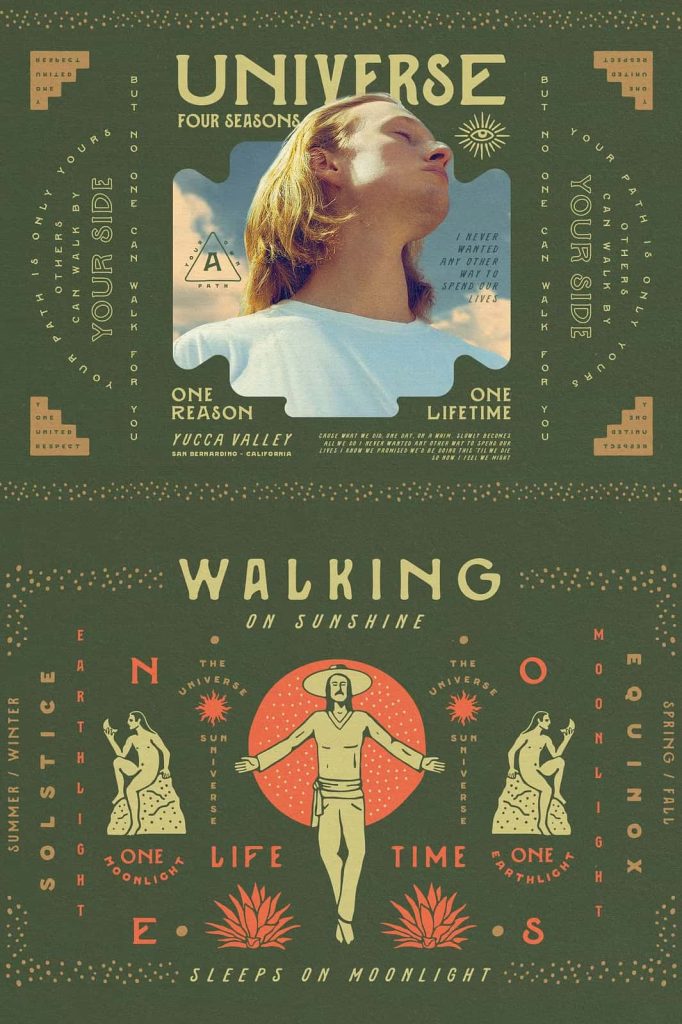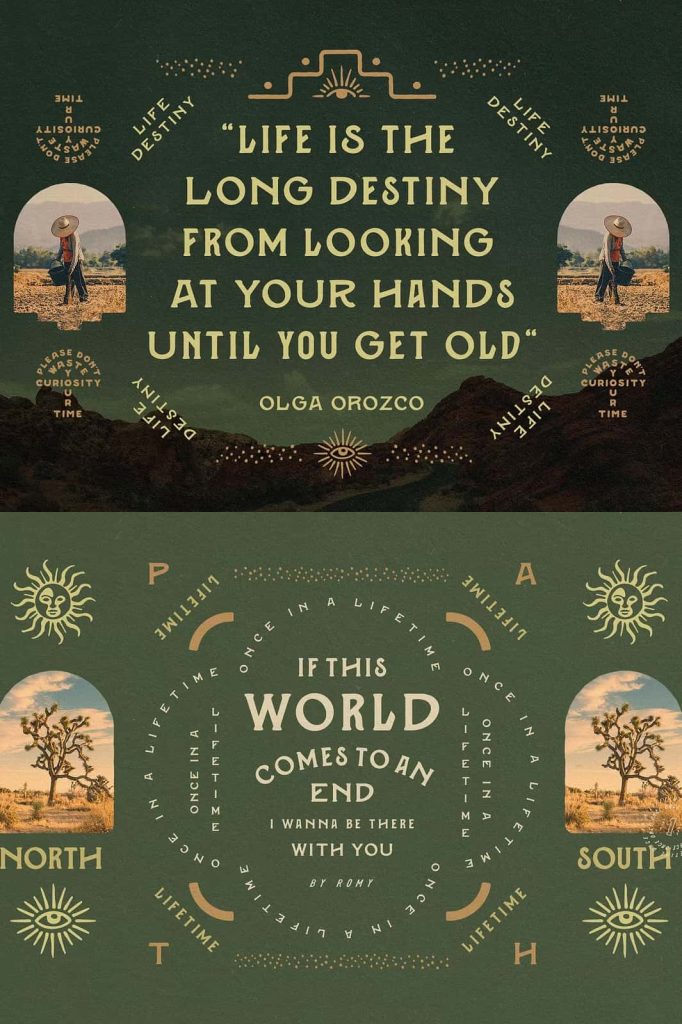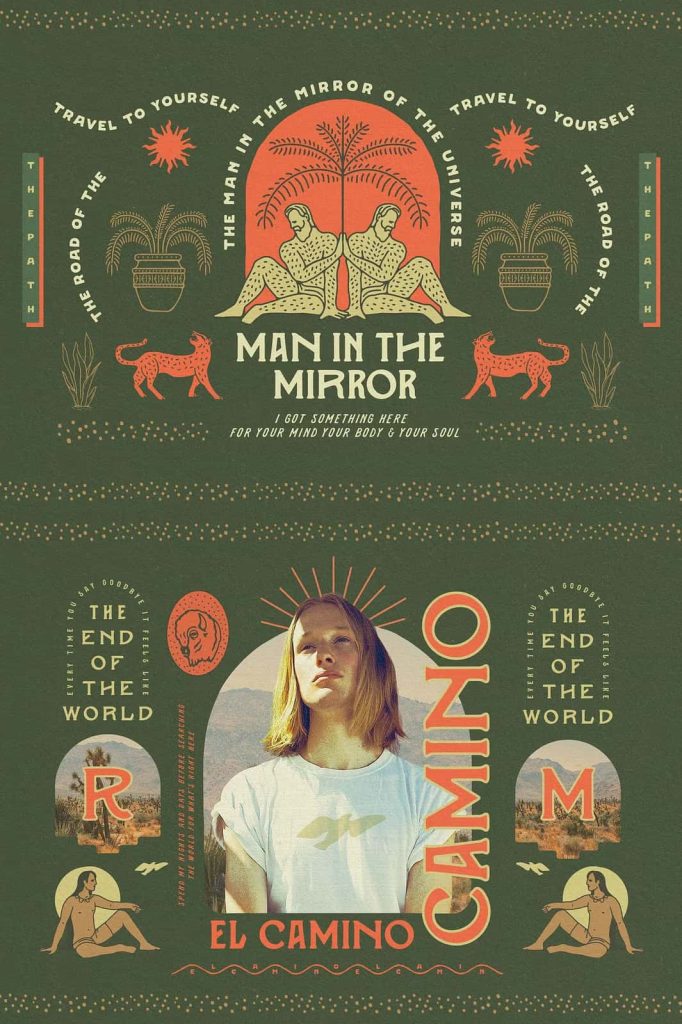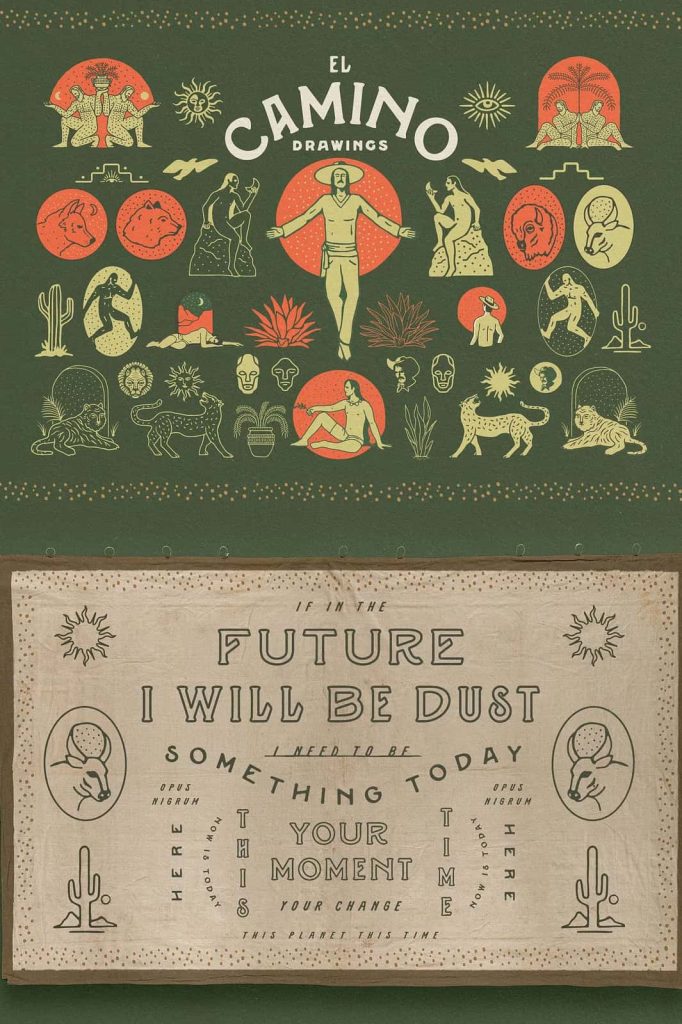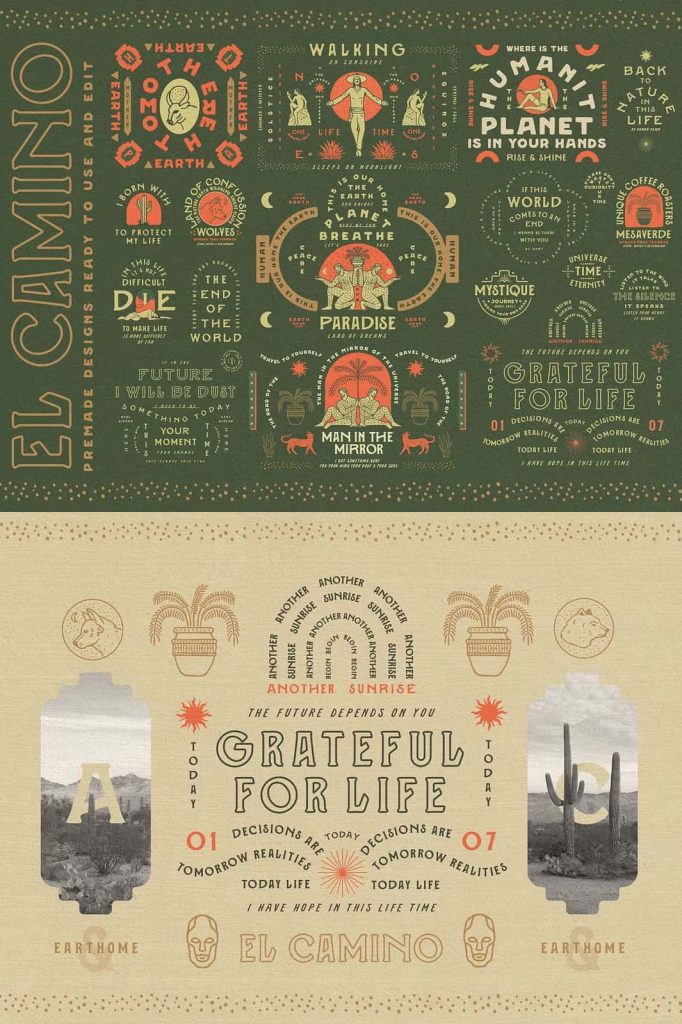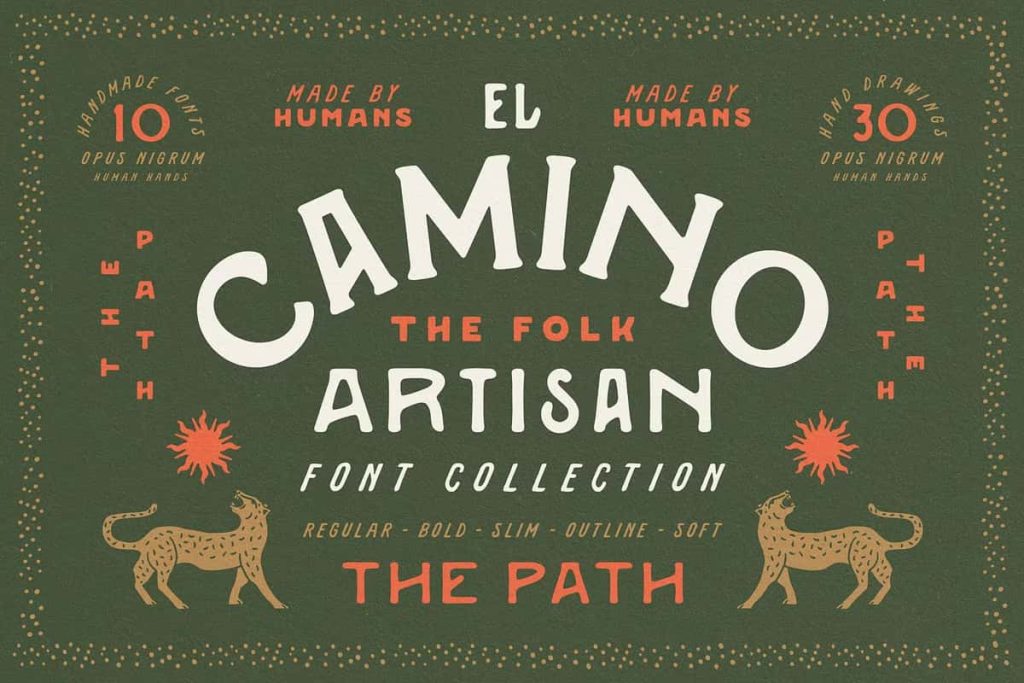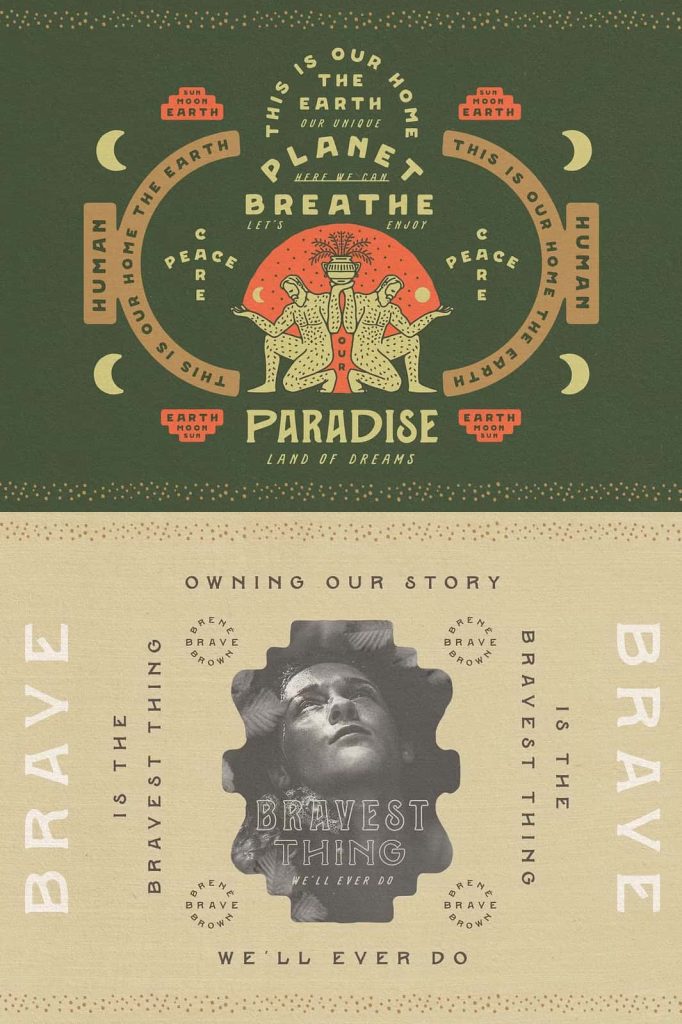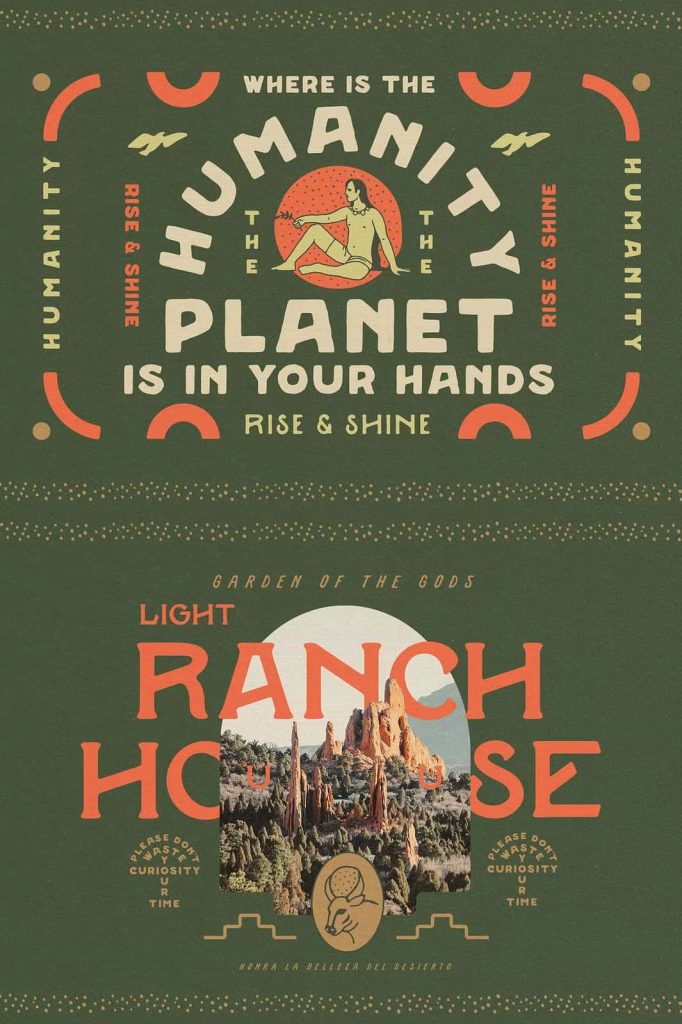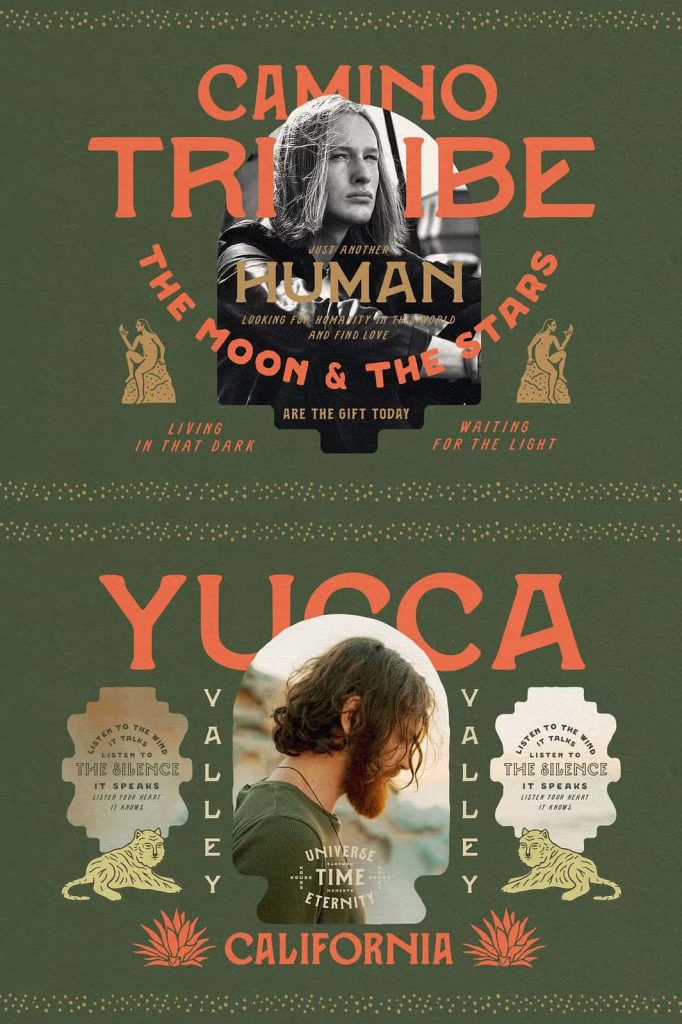
El Camino Typeface: A Journey Through the Spirit of the Old West
El Camino means “The Path,” and this typeface lives up to its name by representing movement, reflection, and personal evolution. Inspired by the raw beauty of the old west, El Camino draws from desolate landscapes, sunburned deserts, and long roads stretching across California and Mexico. It captures the feeling of traveling through vast open spaces where time slows down and every step forward carries meaning.
This collection was not created simply as a font, but as a visual narrative. El Camino channels the atmosphere of dusty trails, worn leather, and the lingering warmth of whiskey or mezcal shared at the end of a long day. It speaks to designers who value storytelling and want typography that communicates depth, emotion, and character.
Rooted in Desert Landscapes and Western Heritage
El Camino takes strong visual cues from the rugged environments of the American Southwest and Northern Mexico. These regions are defined by harsh sunlight, dry air, and a powerful sense of solitude. The typeface reflects that environment through confident letterforms that feel grounded and weathered, yet purposeful.
The influence of the old west appears in the font’s bold presence and strong personality. It echoes vintage signage, hand-painted lettering, and classic western typography without feeling like a direct imitation. Instead, El Camino reinterprets these influences into a modern display typeface that feels authentic and relevant.
Inspired by Places That Shape the Soul
The deserts of California and Mexico are more than visual references; they represent isolation, endurance, and clarity. El Camino translates these ideas into typography that feels reflective and intentional. Each letterform carries a sense of weight, as if shaped by heat, time, and experience.
This connection to place makes El Camino especially powerful for designs that aim to evoke atmosphere and emotion rather than pure decoration.
A Typeface That Represents the Journey of Life
At its core, El Camino symbolizes the journey each person takes through life. It reflects moments of introspection, learning, and transformation. The font feels steady and confident, yet introspective, mirroring the balance between movement and pause that defines personal growth.
Designers can use El Camino to communicate stories of exploration, independence, and self-discovery. It fits naturally into narratives that emphasize authenticity, resilience, and the value of experience over speed.
Introspection Expressed Through Typography
El Camino does not rush the viewer. Its visual rhythm encourages reflection and presence. This makes it well suited for projects that aim to create a deeper emotional connection rather than instant consumption.
The font works particularly well in designs where typography carries symbolic meaning, such as album covers, book titles, or brand identities built around storytelling.
Bold Character with a Timeless Western Feel
El Camino delivers a strong display presence that commands attention without feeling aggressive. Its letterforms feel sturdy and confident, yet they retain subtle warmth and humanity. This balance allows the font to feel both bold and approachable.
The western influence gives the typeface a timeless quality. It feels connected to the past while remaining adaptable to modern design needs. This versatility allows El Camino to work across print and digital platforms with consistency.
- Branding and logo design
- Editorial headlines and magazine features
- Posters and visual storytelling projects
- Album covers and music-related artwork
- Packaging inspired by craft, heritage, or tradition
Flavors of Whiskey, Mezcal, and Slow Living
The spirit of El Camino is closely tied to the culture of slow living and thoughtful craftsmanship. The mention of whiskey and mezcal is not accidental. These drinks symbolize patience, tradition, and depth of flavor developed over time. El Camino carries that same philosophy into typography.
The font feels mature and intentional, making it a strong choice for brands that value authenticity and storytelling over trends. It works especially well for craft products, lifestyle brands, and creative projects that celebrate heritage and process.
Designed for Story-Driven Creative Work
El Camino thrives in projects where design serves a narrative purpose. It supports visuals that aim to transport the audience to a specific place or mindset. When used thoughtfully, the font becomes part of the story rather than just a decorative element.
Designers who choose El Camino often seek typography that adds emotional weight and cultural reference to their work.
A Display Font That Walks Its Own Path
El Camino stands as a typeface that embraces individuality and personal journeys. It does not follow trends blindly; instead, it carves its own path, much like the roads that inspired it. Through its western roots, desert influence, and philosophical depth, El Camino offers more than visual style.
For creatives looking for a display font that communicates exploration, introspection, and timeless character, El Camino delivers a typographic voice that feels honest, grounded, and deeply human.